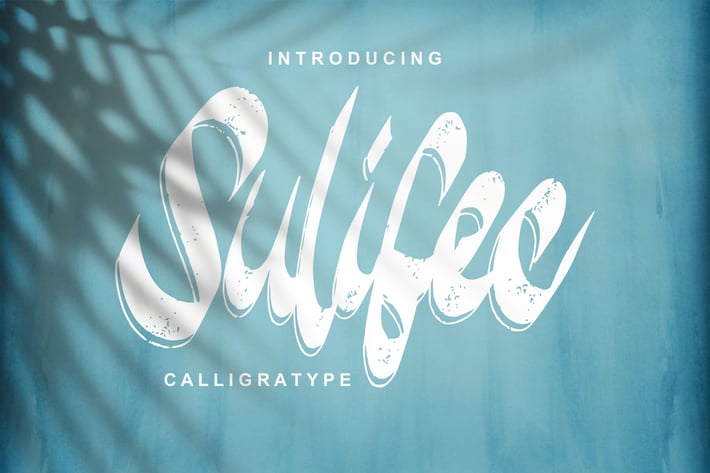
Sulifec | Calligratype Script Font
Sulifec | Calligratype Script Font with a calligraphy style, So beautiful on invitation like greeting cards, branding materials, business cards, quotes, posters, and more!